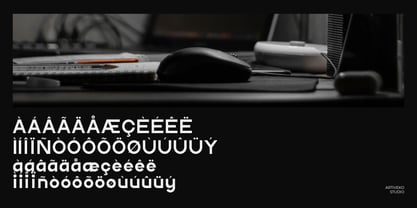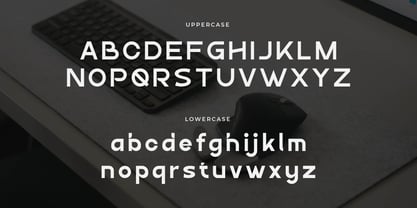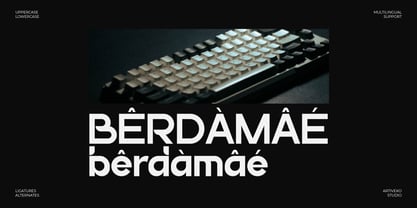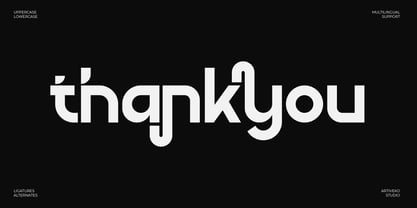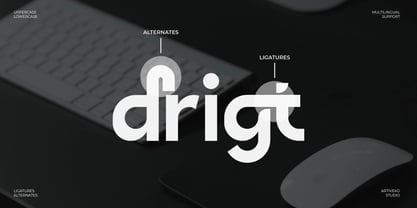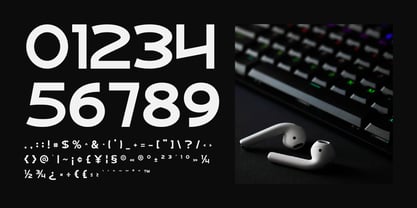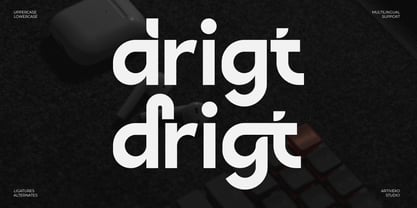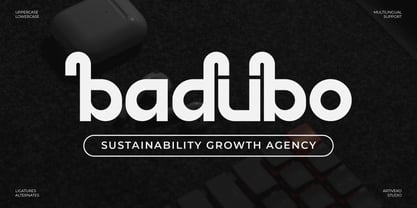
Drigt
by Artiveko
The Drigt Font Family was designed by Iwan Alwan and published by Artiveko. Drigt contains 2 styles and family package options. More about this family
Drigt is a modern creative sans serif typeface that brings a fresh and confident aesthetic to contemporary design. Featuring a clean structure, balanced proportions, and subtle distinctive details, Drigt strikes the perfect balance between professionalism and creative expression. This versatile typeface is ideal for branding, logos, visual identity, packaging, social media graphics, posters, and digital design, adapting seamlessly across a wide range of applications. Its modern form ensures high readability while maintaining a unique personality that makes your designs stand out. Whether utilized by creative studios, startups, or modern brands, Drigt offers a strong yet flexible typographic voice for impactful visual communication. Drigt is not just a font — it’s a modern creative tool designed for expressive design.
Designers: Iwan Alwan
Foundry: Artiveko
Artiveko is a font design team based in Indonesia, comprised of several talented font designers who commenced their careers in the font design industry in 2020. With a dedicated focus on crafting fonts, the team members bring their collective expertise and passion to every project they undertake. Situated in Indonesia, Artiveko draws inspiration from the vibrant cultural landscape of the region, infusing their creations with unique flavors and aesthetics.The team's font collection encompasses a diverse range of styles, including serif, sans serif, handwritten, and script typefaces. Each typeface is meticulously crafted to meet the demands of modern design while offering versatility and functionality across various applications. Whether it's the classic elegance of serif fonts, the contemporary appeal of sans serif designs, the personal touch of handwritten scripts, or the expressive flourishes of script fonts, Artiveko ensures that every font reflects their dedication to quality and innovation.Artiveko's fonts have garnered recognition and acclaim, with their works being featured on prominent social media platforms like Creative Market. Through these platforms, the team has been able to connect with a global audience of designers and typographers, further amplifying their reach and influence in the industry. Their fonts are celebrated for their impeccable craftsmanship, attention to detail, and ability to elevate design projects with style and sophistication.As Artiveko continues to evolve and expand its font collection, the team remains committed to pushing the boundaries of typography and setting new standards of excellence. With a relentless focus on creativity, innovation, and collaboration, Artiveko strives to inspire and empower designers around the world with their distinctive and versatile font designs.